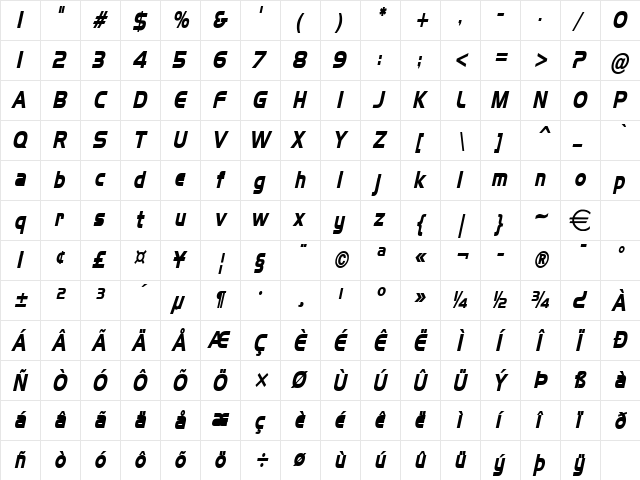
HanzelThin BoldItalic
Design Context for HanzelThin Typeface
HanzelThin takes a measured approach to typography — its balanced proportions and neutral character make it a reliable workhorse for both digital and print work. The slanted form adds forward momentum and visual energy. The heavy weight commands attention and anchors typographic hierarchies.
Pro Tip: Try HanzelThin for annotation and caption copy alongside an upright companion — the contrast in angle creates a dynamic but ordered typographic system.